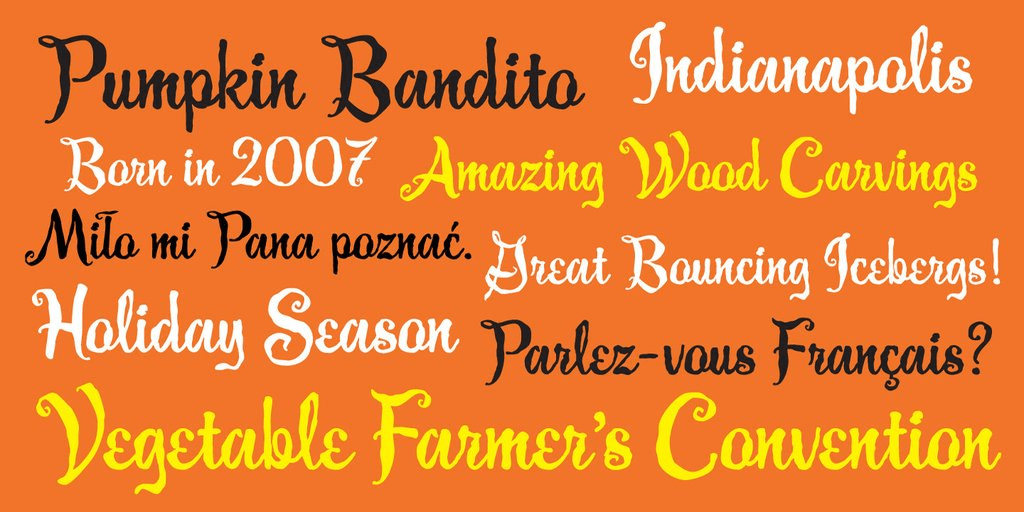
Guedel Script
Font Family by Jukebox
Guedel Script is a slightly distressed upright script font inspired by a hand lettered sample. It is named after a friend of the designer who is a well known wood carver and folk artist. The letters have a rustic and "down-home" feel to them that makes Guedel Script a great choice for any design from products, movies, and music to holiday themed items. This is one of my personal favorites!